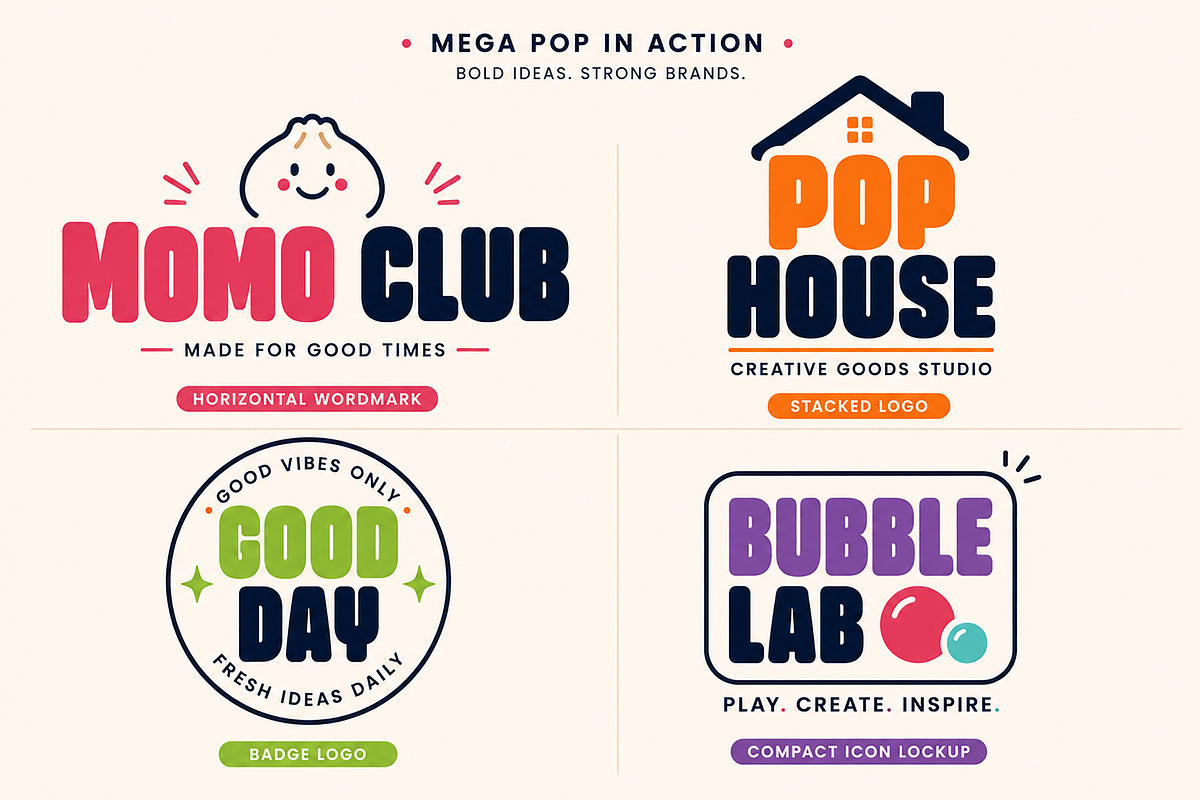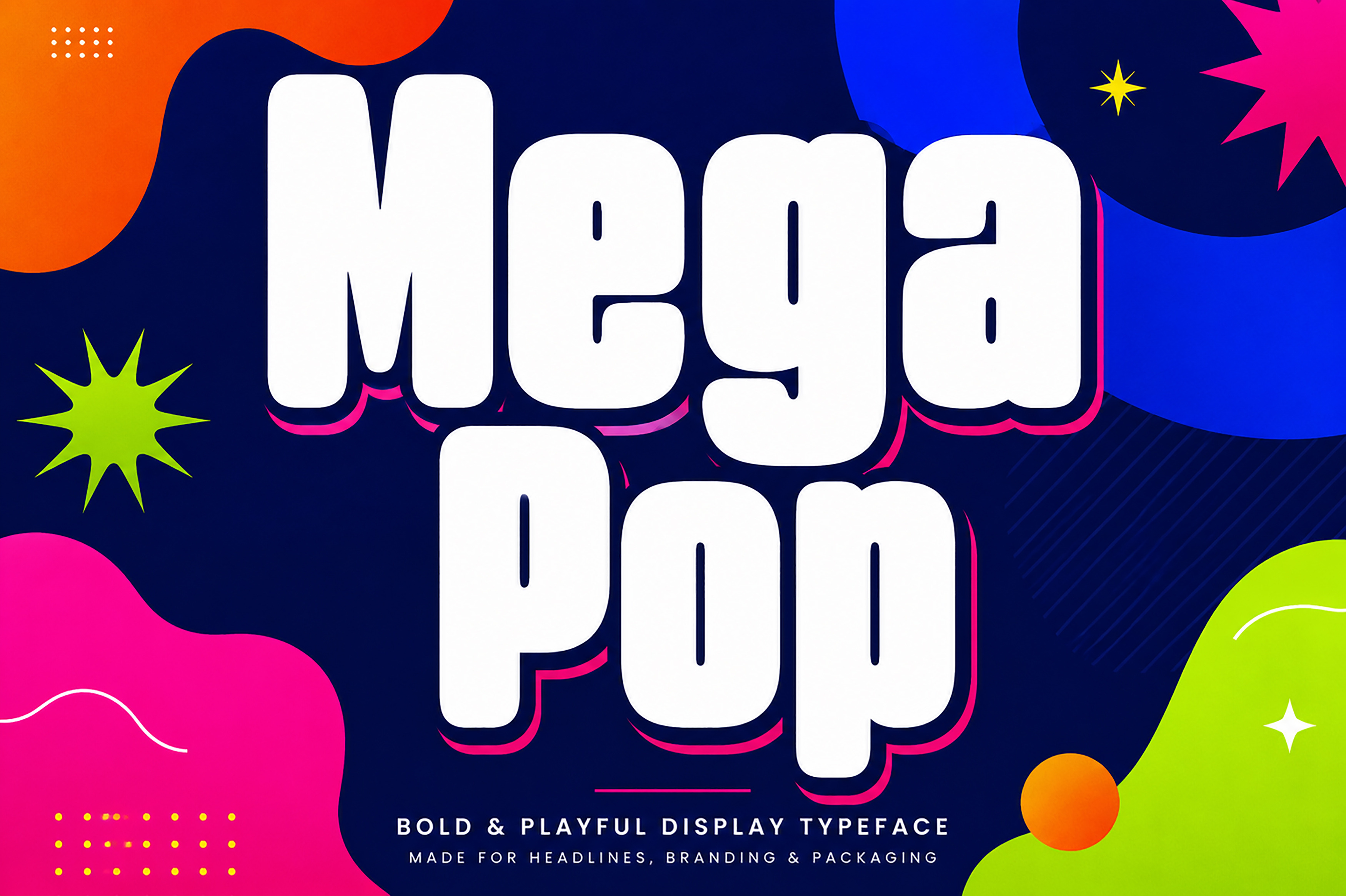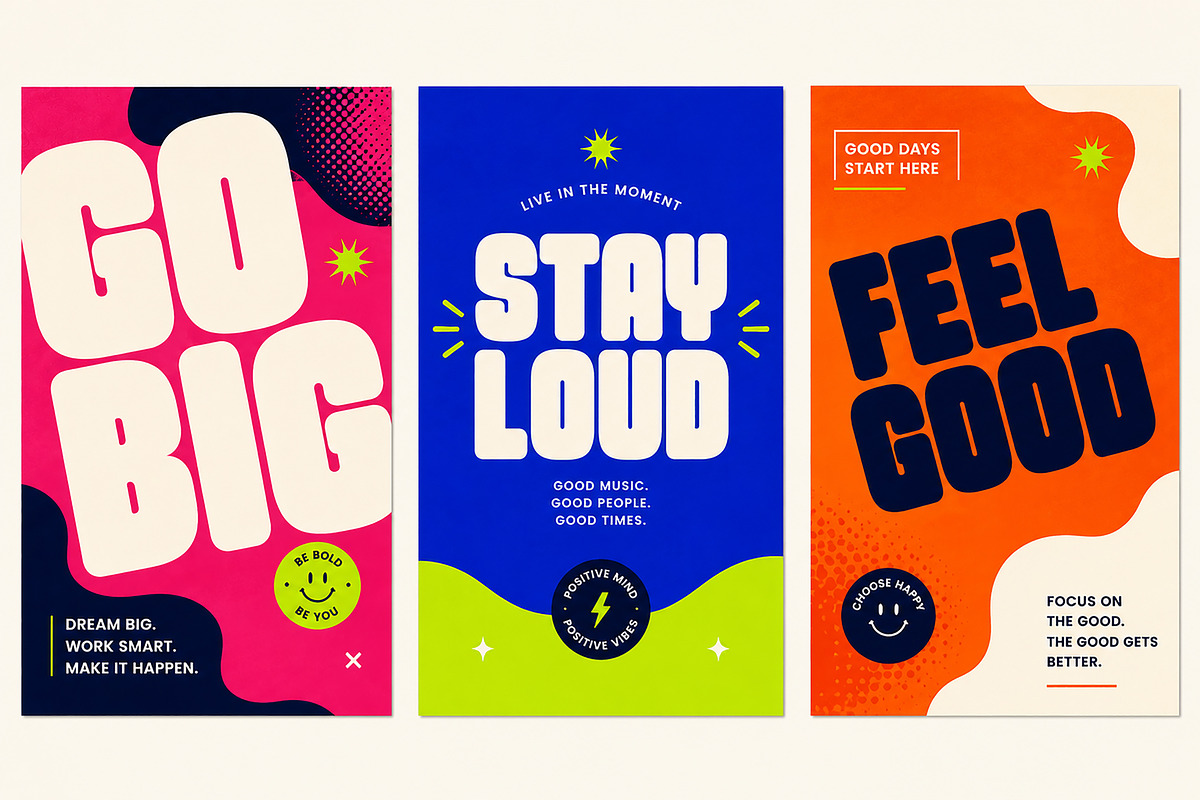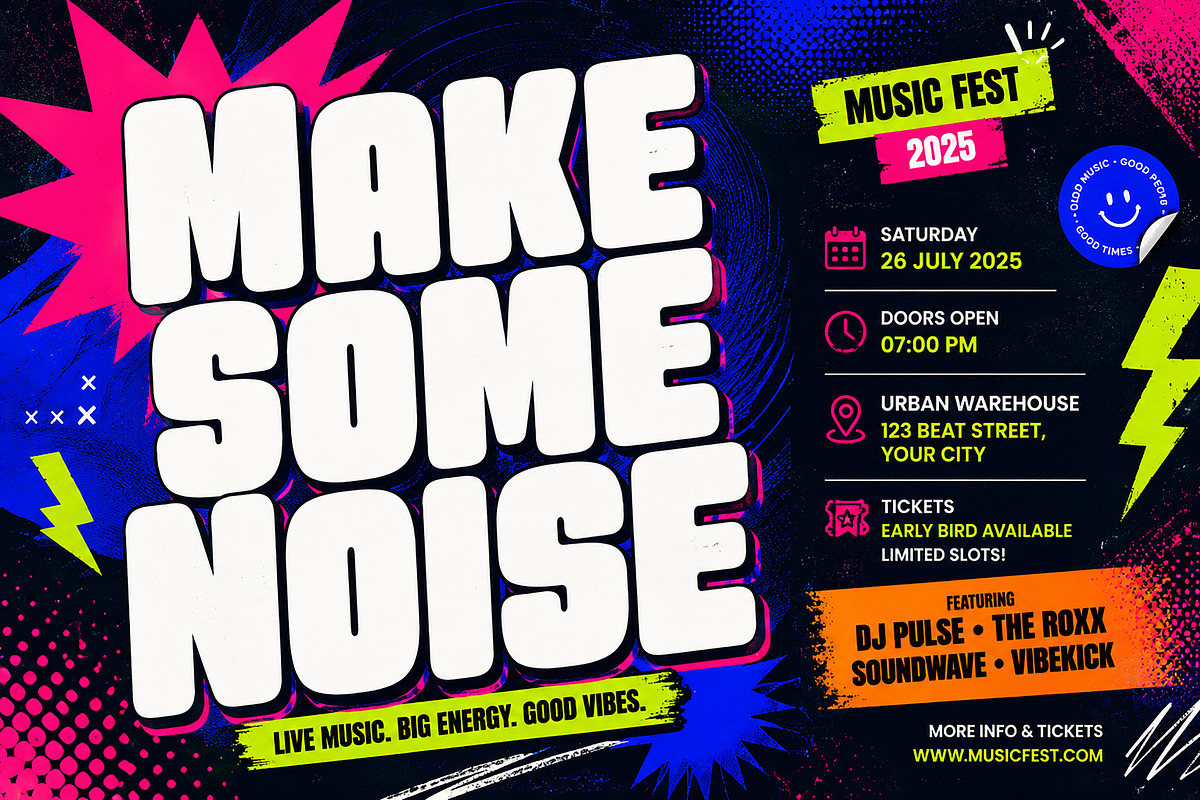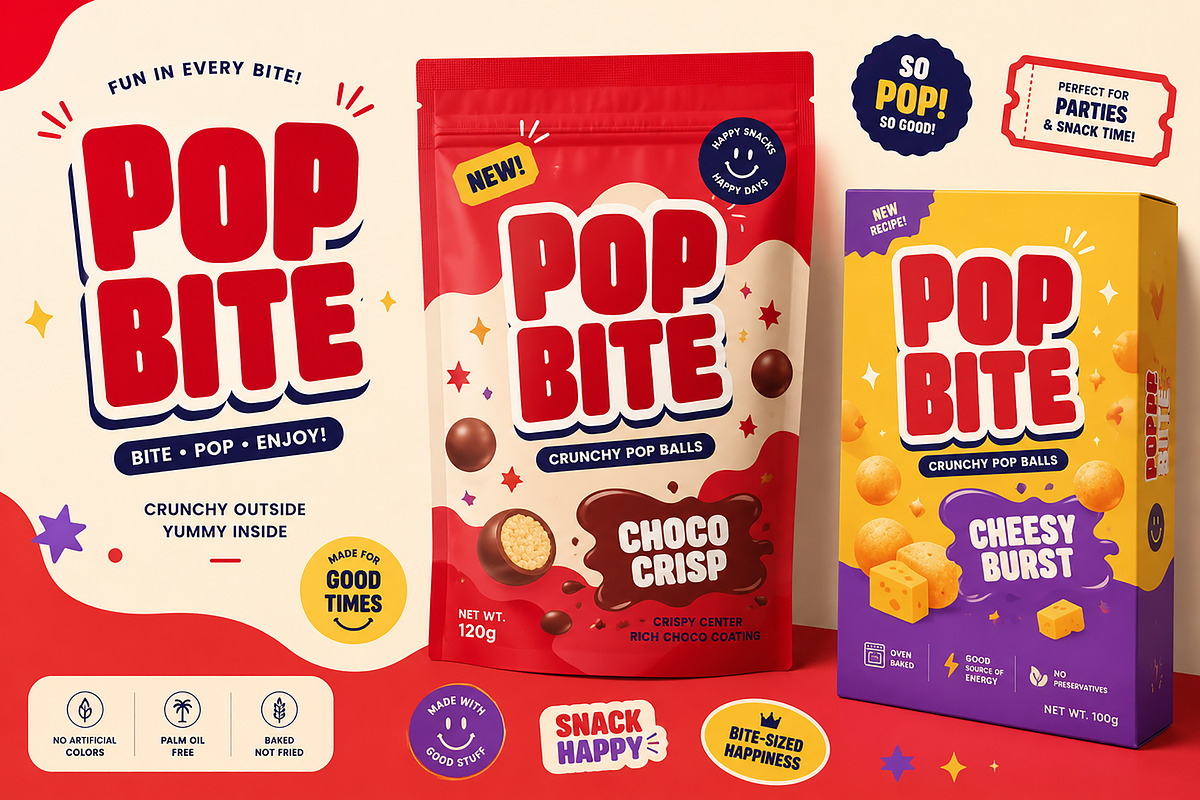
Mega Pop – Bold Display Font
Mega Pop – Bold & Playful Display Font
Mega Pop is a bold, chunky display typeface designed to bring maximum personality and impact to your creative projects. With its heavy letterforms, rounded shapes, and playful proportions, Mega Pop creates an energetic visual style that instantly grabs attention.
Perfect for designers looking for a fun yet powerful display font, Mega Pop works beautifully across branding, packaging, posters, advertising, social media graphics, merchandise, and attention-grabbing headlines. Its distinctive character makes it especially suitable for colorful, youthful, retro-inspired, and pop-style designs.
Whether you're creating a playful brand identity, bold promotional poster, snack packaging, or eye-catching social media campaign, Mega Pop gives your typography a strong and memorable presence.
Mega Pop is ideal for logos & branding, posters, headlines, food & snack packaging, candy branding, social media graphics, advertisements, promotional campaigns, merchandise, T-shirts, stickers, labels, editorial titles, event graphics, kids projects, and other bold creative designs.
Bold & chunky display style
Rounded and playful letterforms
Strong visual impact
Great for large headlines and titles
Perfect for colorful branding and packaging
Bring big personality to your next project with Mega Pop — a playful display font made for designs that deserve to stand out.